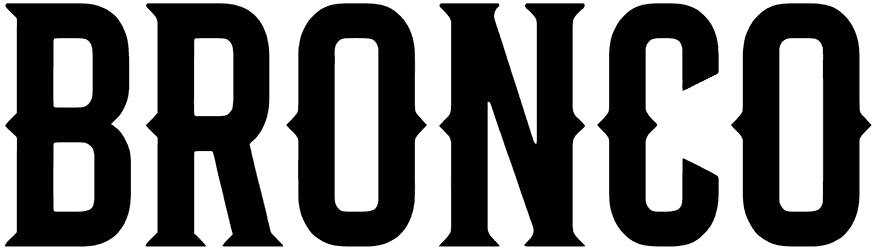
Tanomuze Cowboy Font
Tanomuze Cowboy is a Western font that gives off bold, retro vibes. It comes with uppercase letters. If you are looking for a font to go with your Cowboy theme party flyer you should know that you’re meeting the right one!
Tanomuze Cowboy can make a perfect choice for comic books, Western and Cowboy movies, posters, cartoons, print T-shirts, and many more!